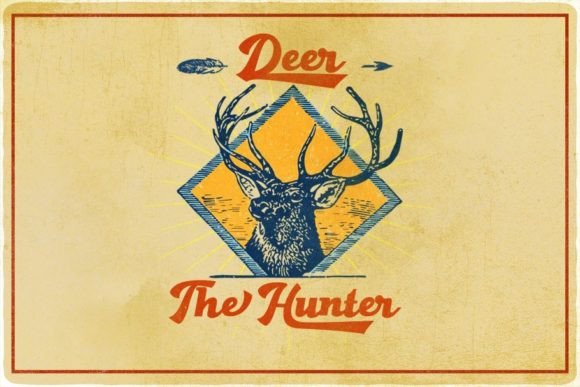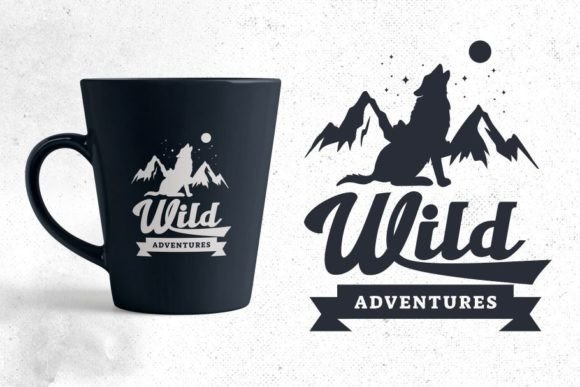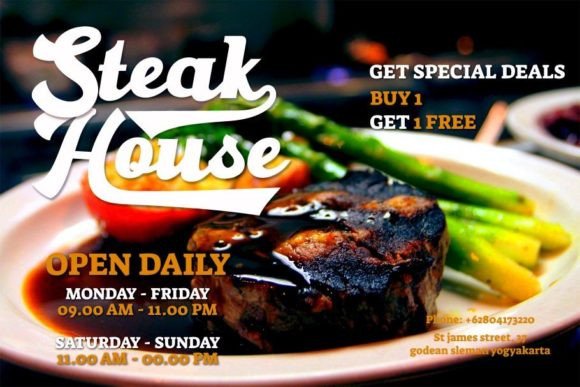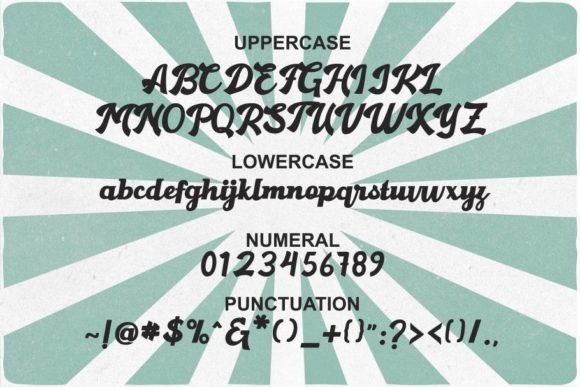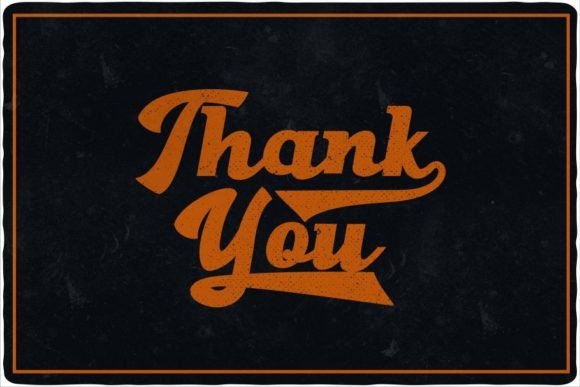
Gantry Font
About Gantry Font
GANTRY FONT SPECIMEN
Gantry is an amazing slab serif font with a retro look. Every single letter has been carefully crafted to make your text looks beautiful. This font is suitable for headlines, logos, typography designs, t-shirt designs, invitations, branding, packaging, advertising, classic designs, poster designs, etc.